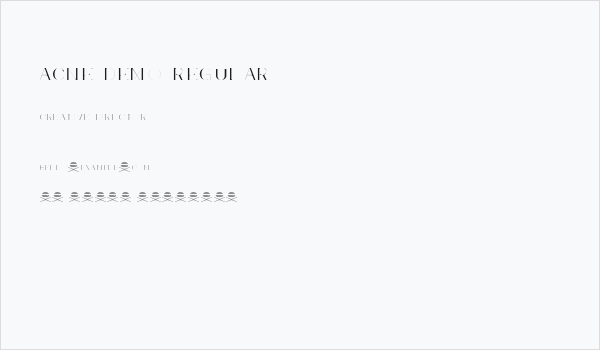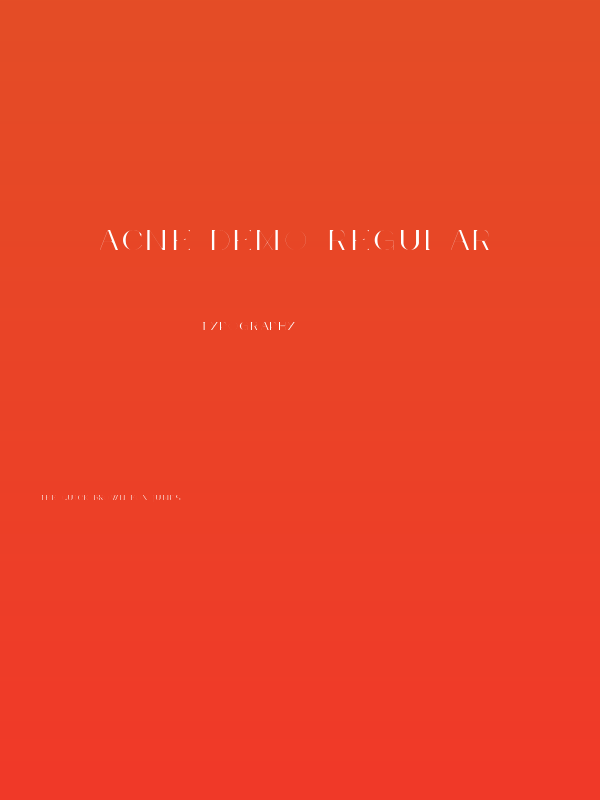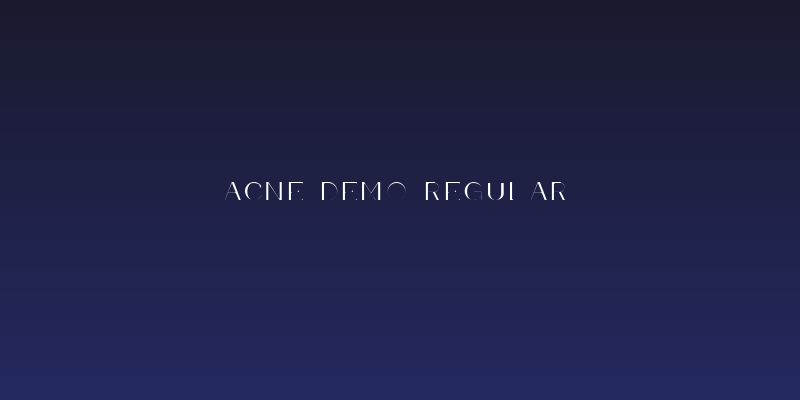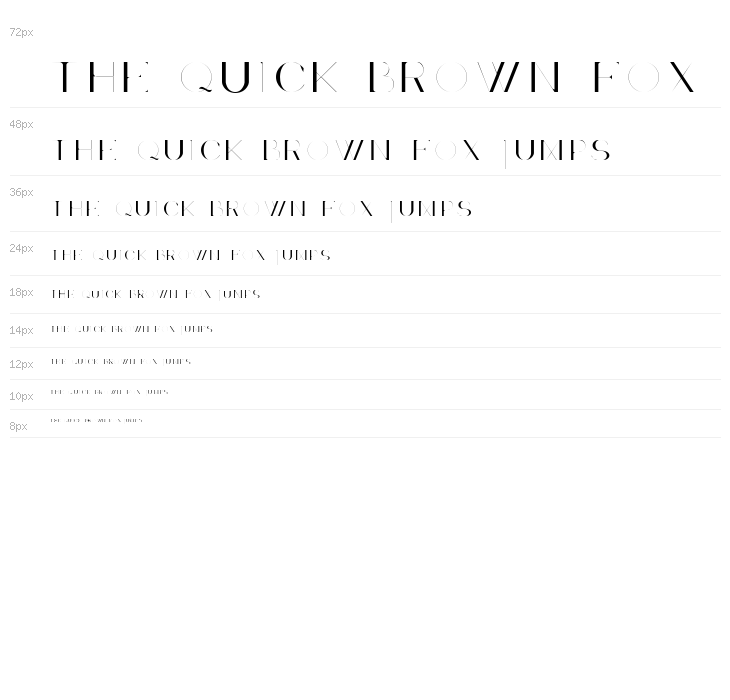
Acne Demo Regular Font
Acne Demo Regular Description
This font features a modern and minimalist design with a unique blend of geometric and linear elements. The uppercase letters exhibit a clean and sharp aesthetic, with some characters incorporating subtle curves and angles that add a distinctive flair. The lowercase letters maintain a consistent style, offering a harmonious balance between form and function. The numerals are straightforward and align well with the overall design, ensuring readability. Special characters are thoughtfully integrated, maintaining the font's sleek and contemporary appearance. This font's design is ideal for projects that require a modern and sophisticated touch.